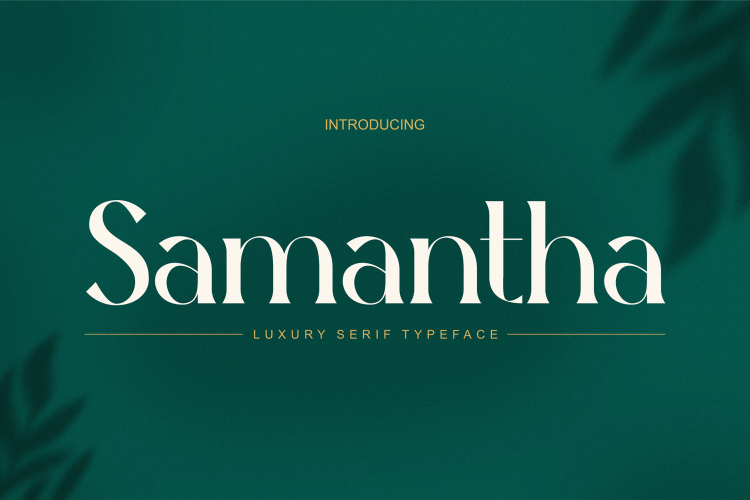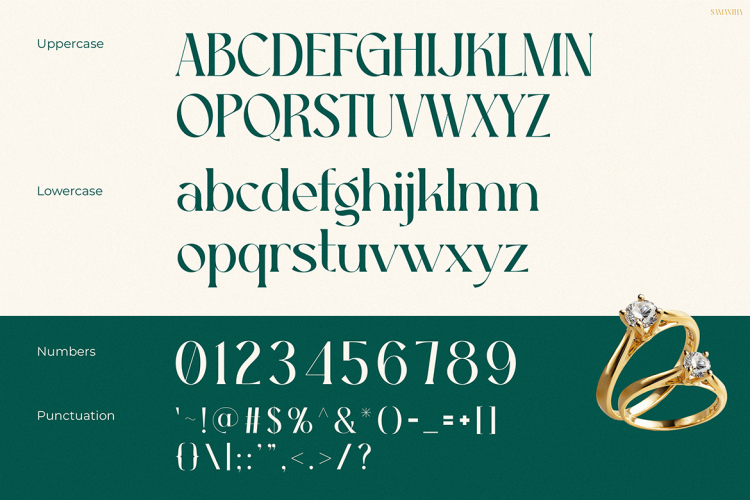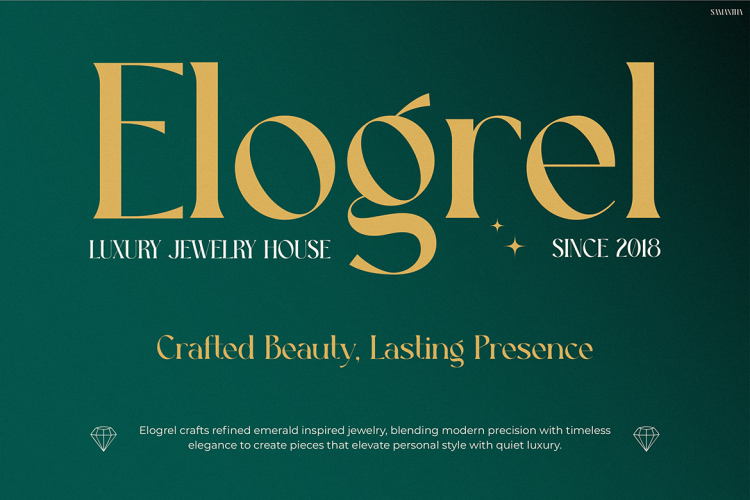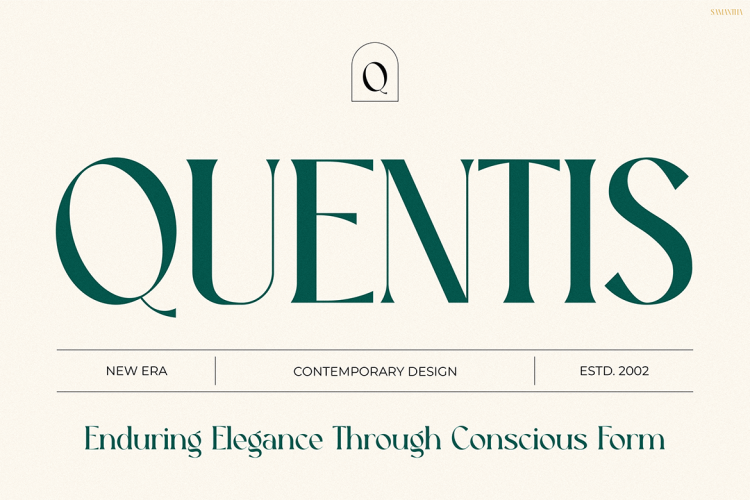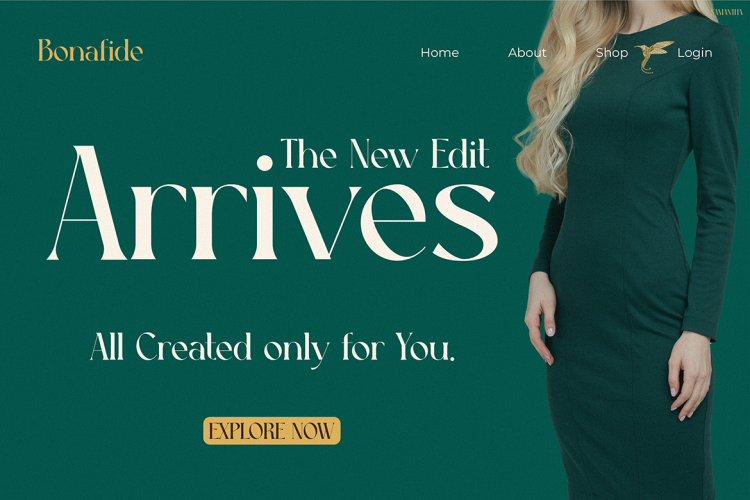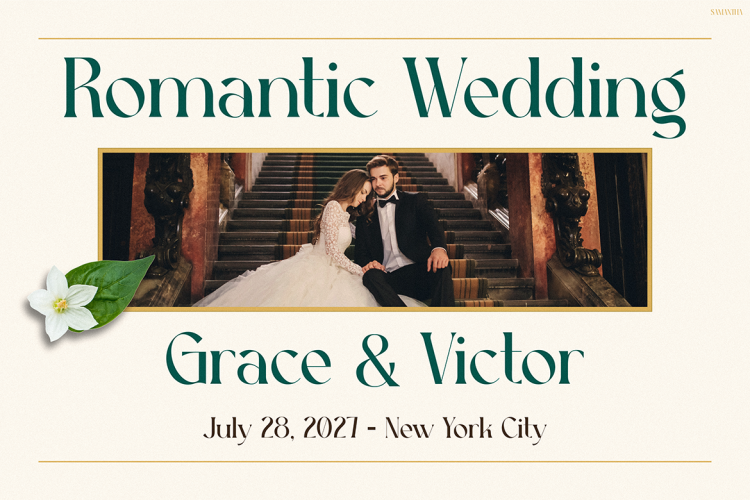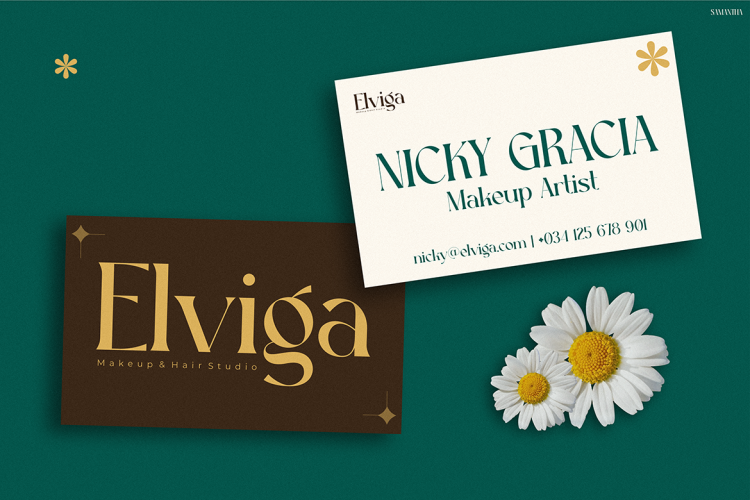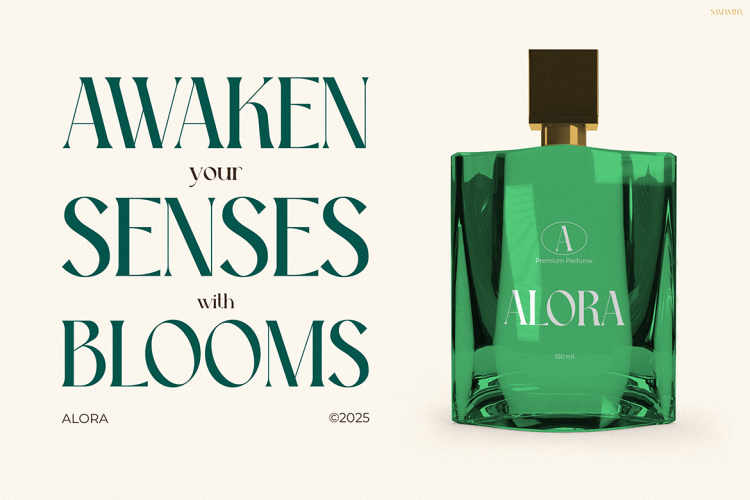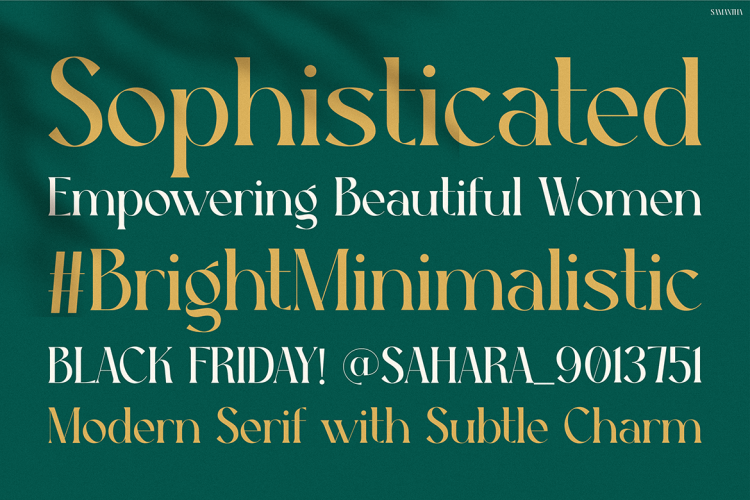
Instagram Font Samantha โ A Stylish Serif for Modern Elegance
Instagram Font Samantha introduces a refined, high-end aesthetic that instantly elevates every visual composition you create. From the very first glance, you can see why this font feels uniquely magnetic: it blends modern minimalism with subtle classical charm, therefore creating an elegant balance between beauty and readability. Its graceful curves, sharp serif edges, and smooth letter proportions work together harmoniously, making each layout feel polished and intentional. Moreover, Samantha adapts beautifully across different stylesโwhether the previews show wedding themes, fashion branding, organic product packaging, or editorial spreads, the font consistently delivers a premium look. Consequently, designers can rely on Samantha to transform simple designs into sophisticated artwork that captures attention effortlessly.
Why This Font Is Special
Samantha’s strength lies in its carefully crafted details. Its high-contrast strokes, refined uppercase forms, and fluid lowercase shapes create a timeless visual rhythm. Furthermore, the font includes tasteful ligatures that add personality to headlines and logos, making every word appear more expressive. Additionally, its balanced spacing ensures excellent readability even in more complex layouts. Because of this thoughtful design, Samantha becomes versatile enough for both modern advertising and soft romantic settings.
The preview images demonstrate this adaptability clearly. For instance, the luxurious emerald backgrounds highlight its elegance, while the cream-colored wedding invitations showcase its warmth. Meanwhile, the perfume and skincare branding examples reveal its ability to express femininity and sophistication. Therefore, Samantha is not just visually pleasingโit also provides functional flexibility for various industries.
Brand designers who need a refined, premium serif
Instagram creators seeking elevated, cohesive aesthetics
Wedding invitation designers wanting romantic elegance
Beauty, skincare, fashion, and lifestyle branding
Editorial layouts, magazines, promotional posters
Boutique businesses, coaches, and creative entrepreneurs
Typography enthusiasts who love expressive display fonts
Overall, Instagram Font Samantha is more than a fontโit is a complete design enhancer that brings confidence, elegance, and clarity to your visual identity. Because of its versatility and distinctive style, your projects will immediately look more professional and more captivating. Therefore, if you want to make your designs stand out beautifully across Instagram, branding materials, and commercial layouts, Instagram Font Samantha is the perfect choice. Add it to your collection today and experience how effortlessly it elevates your creative work.